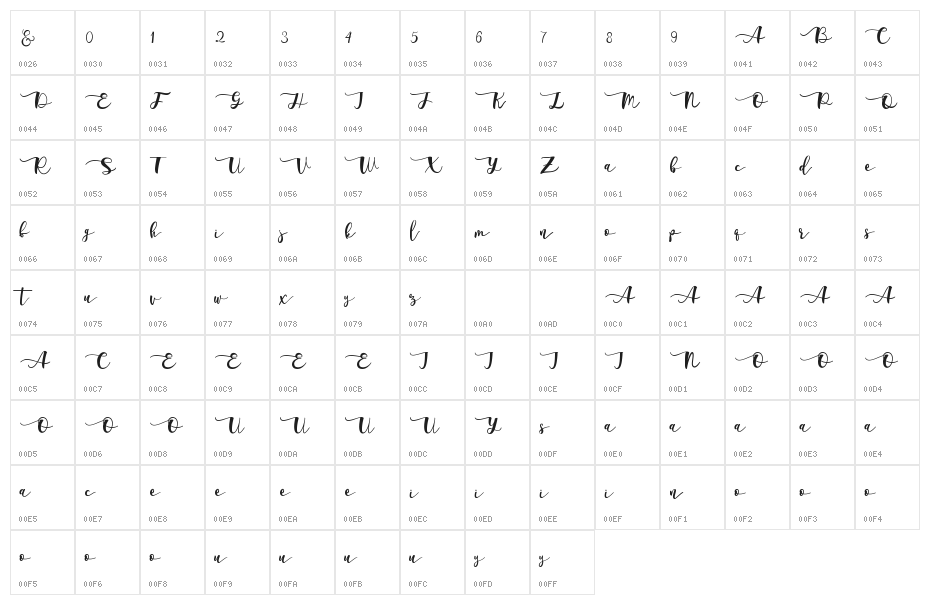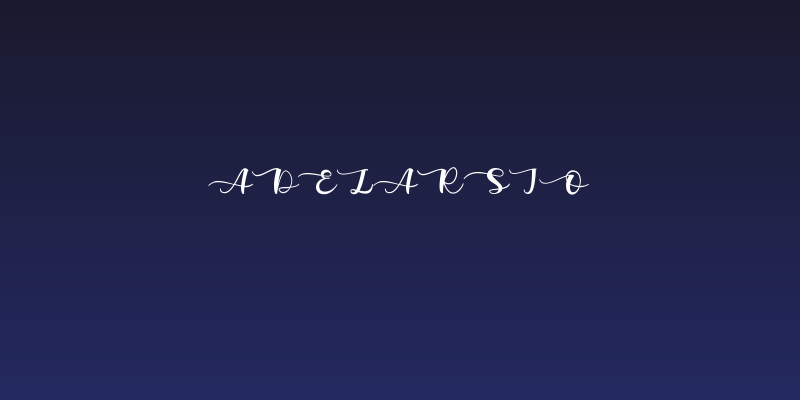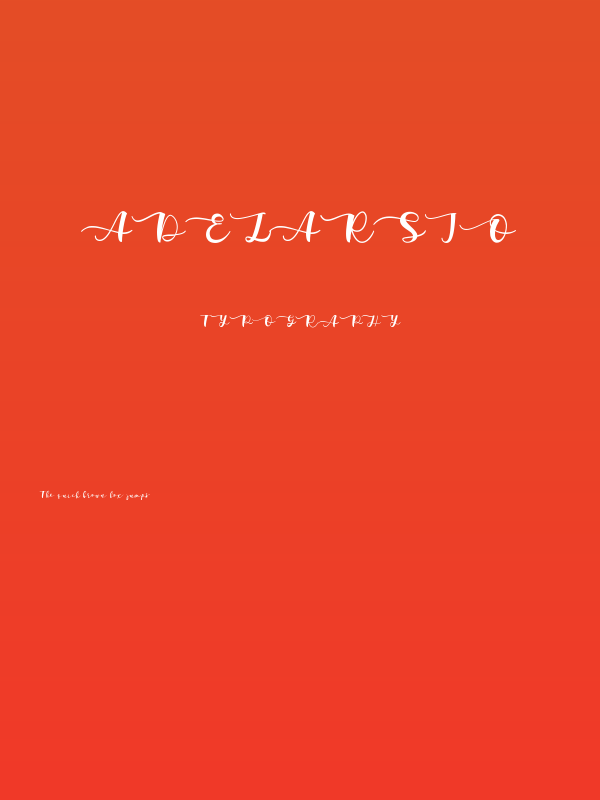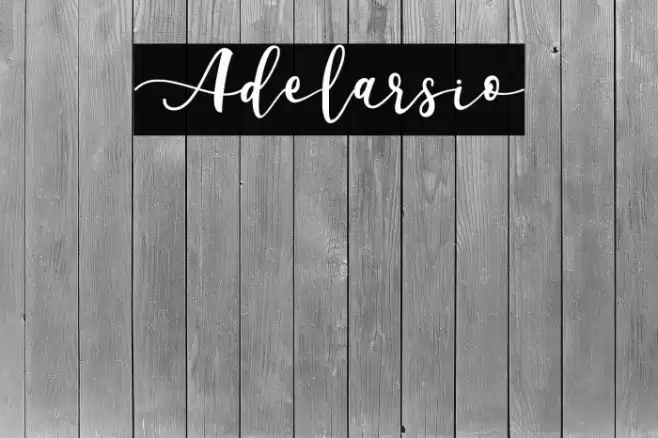
Adelarsio Font
Adelarsio Description
This elegant script font features flowing, interconnected letters that exude a sense of sophistication and grace. The uppercase letters are adorned with delicate swashes, adding a touch of flair and movement. The lowercase letters maintain a consistent style, with smooth curves and a slight slant that enhances readability. The numerals are clear and distinct, complementing the overall aesthetic. This font is ideal for projects that require a personal, handwritten touch, such as invitations, greeting cards, and branding materials. Its stylish and modern appearance makes it versatile for various design applications.
| Overall Style | Elegant, Modern |
| Use Case | Logos, Invitations, Greeting Cards |
| Proposed Projects | Ideal for wedding invitations, greeting cards, branding, and elegant packaging. |